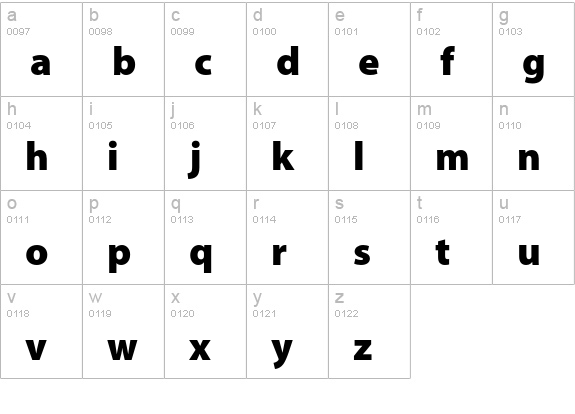
Adobe Corporate ID Myriad Black Font Details
Adobe Corporate ID Myriad Black is a maximum-weight, dramatic variant in the Adobe typeface family \xE2\x80\x94 well suited to maximum-impact headlines, posters, and packaging.
Adobe Corporate ID Myriad Black is a sophisticated and modern typeface that exudes professionalism and elegance. Its bold and clean lines make it perfect for corporate branding and design projects that require a strong and impactful presence. This versatile font is suitable for a wide range of applications, from logos and headlines to marketing materials and signage. What makes Adobe Corporate ID Myriad Black even more appealing is that it is available for free download at FontsMarket.com. This means that you can easily access this high-quality font without any cost, making it a valuable resource for designers and businesses looking to enhance their visual identity. With its timeless design and excellent legibility, Adobe Corporate ID Myriad Black is sure to make a lasting impression in any project it is used in.